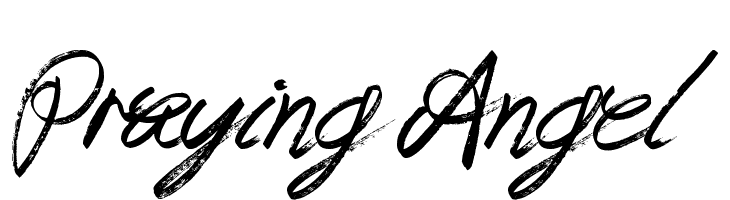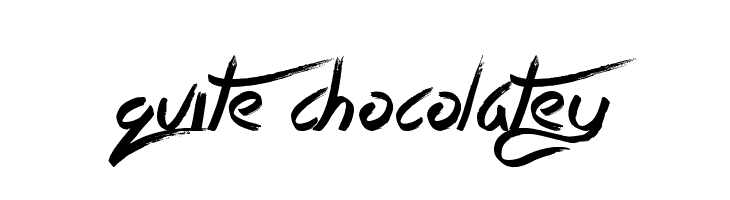
( Fonts by Bartek Nowak - www.nowak.tv/fontoholic/ )
A bold, handwritten-style font with expressive, flowing strokes.
A bold, italic font with dynamic, flowing characters and strong visual impact.
A dynamic, condensed italic font with calligraphic influences.
A dynamic, condensed italic font with sharp angles and pronounced serifs.
A dynamic, italicized font with high contrast and sharp serifs.
( Fonts by www.waltervelezart.com )
An expressive, italic font with sharp, angular strokes and dynamic flair.
A dynamic and expressive italic font with sharp, angular edges and varying stroke thickness.
( Fonts by Ruben Prol - www.ipanemagrafica.com )
A decorative and whimsical font with intricate details and playful elements.
A dynamic, cursive script font with expressive, flowing strokes.
A fluid and expressive handwritten cursive font.
( Fonts by Jens R. Ziehn - www.filmhimmel.com )
A dramatic, angular font with a cursive-like, expressive style.
( Fonts by billyargel.blogspot.com - Billy Argel )
A dynamic, expressive handwritten font with fluid strokes and artistic flair.
( Fonts by Hans J. Zinken )
A bold, dynamic cursive font with fluid, expressive strokes.
( Fonts by Hans J. Zinken )
A dynamic, italic handwritten font with flowing strokes and expressive style.
( Fonts by Edom Wahyudi )
A bold, brush-like font with an expressive, hand-drawn style.
A bold, playful handwritten font with expressive strokes.
( Fonts by joeBob graff-X )
A raw, expressive handwritten font with a personal touch.
( Fonts by Daniel Midgley )
A dynamic, expressive handwritten font with fluid strokes and a casual appearance.
( Fonts by Daniel Midgley )
A bold, handwritten font with a casual and expressive style.
( Fonts by Thomas Ledin - tomledin.com )
A sketch-like, hand-drawn font with an energetic and expressive style.
( Fonts by www.junkohanhero.com )
A bold, brush-style font with an expressive and dynamic appearance.
( Fonts by www.vicfieger.com )
A bold, brush-style font with dynamic, textured strokes.
( Fonts by www.kimberlygeswein.com - Kimberly Geswein )
A lively, handwritten-style font with bold, expressive strokes.
( Fonts by Omega Font Labs )
A bold, expressive handwritten font with dynamic and playful letterforms.